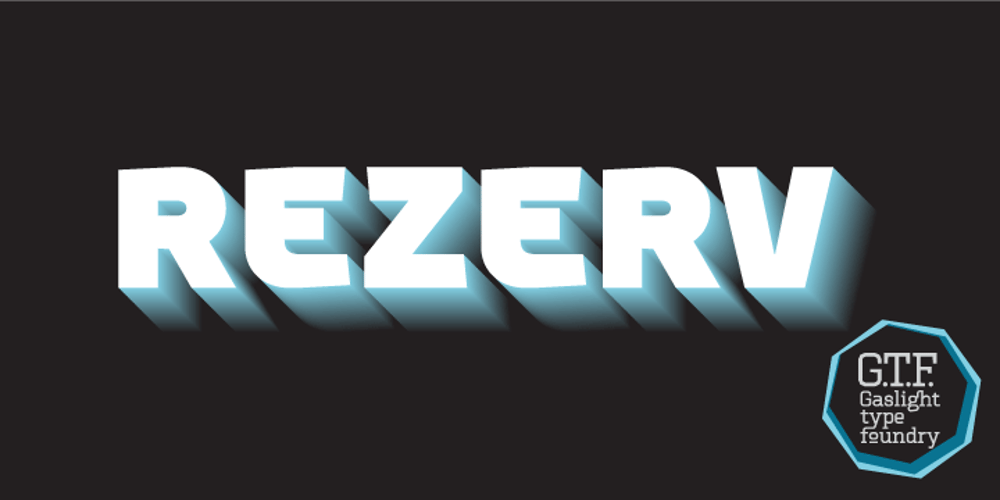
Rezerv Font Family was designed by Valery Zaveryaev and published by Gaslight. Rezerv contains 4 styles and family package options. Reserv was inspired by a logo, which I crated for the company, EVROTERM. Once I saw this logo I asked myself: “Why not font based on this? In two or three weight?” For use in advertising and display typography.